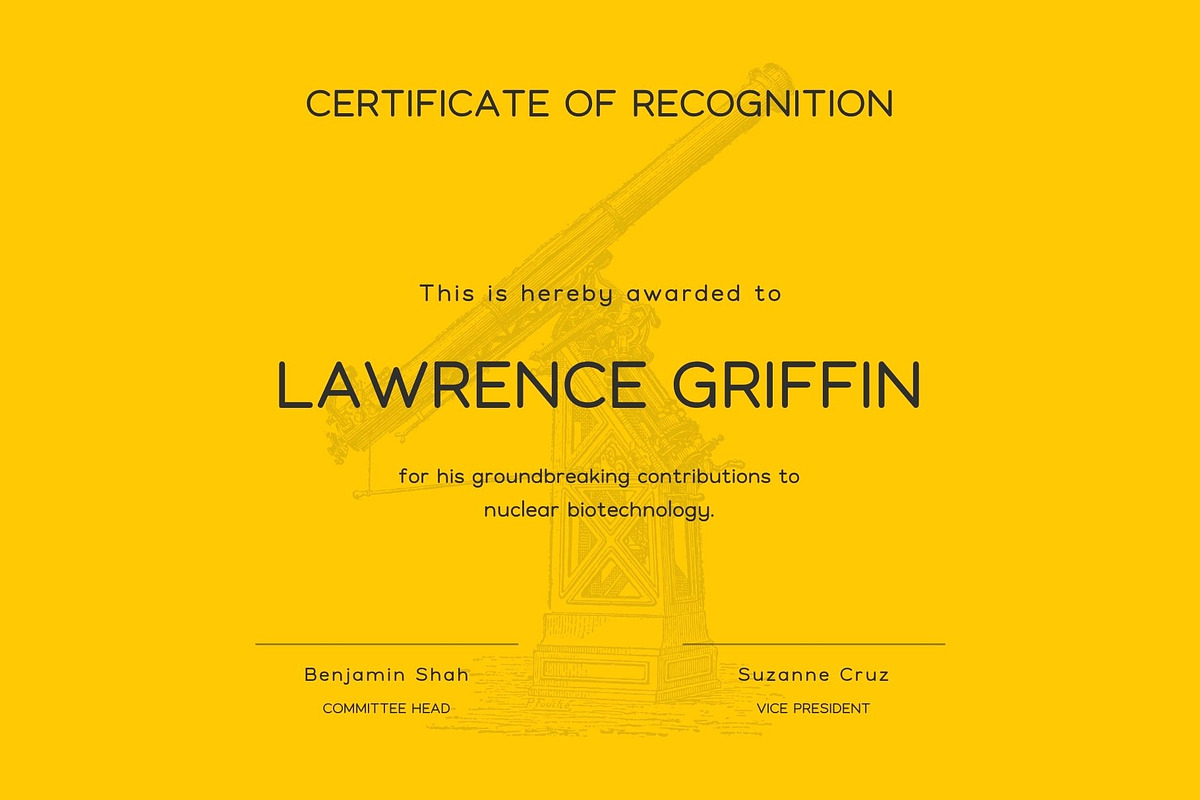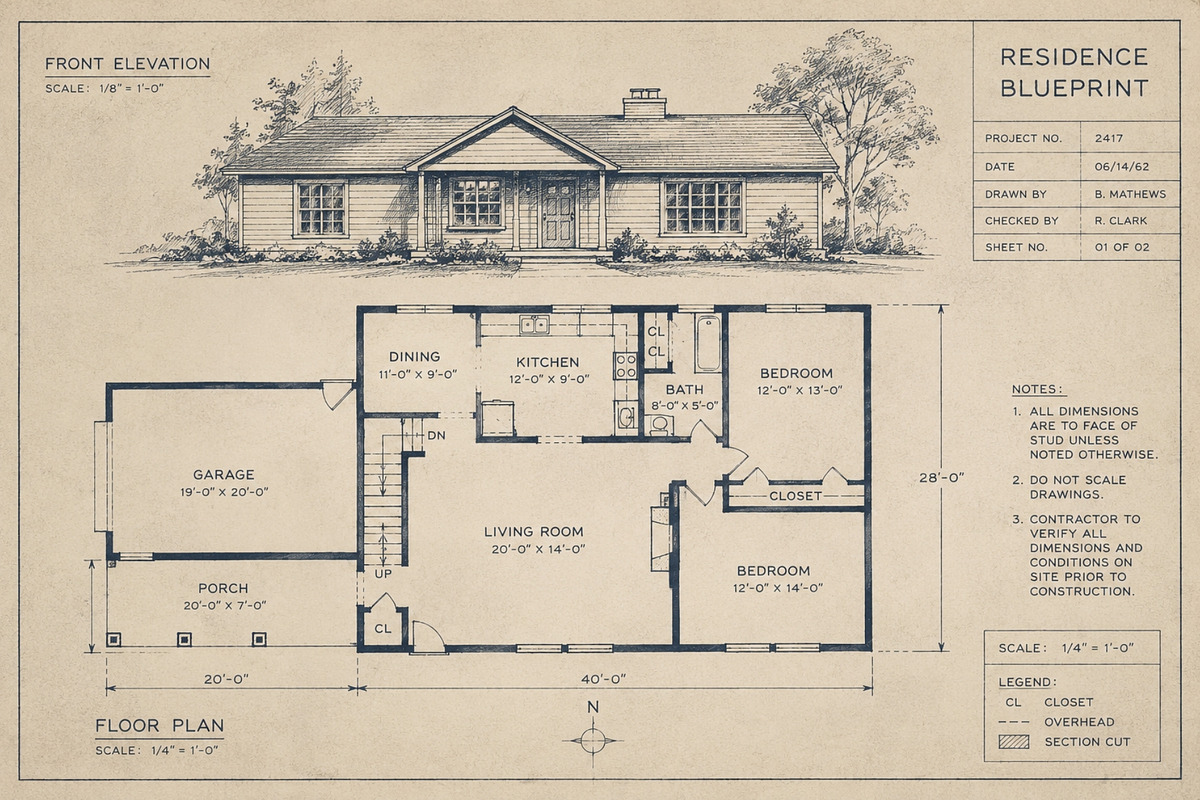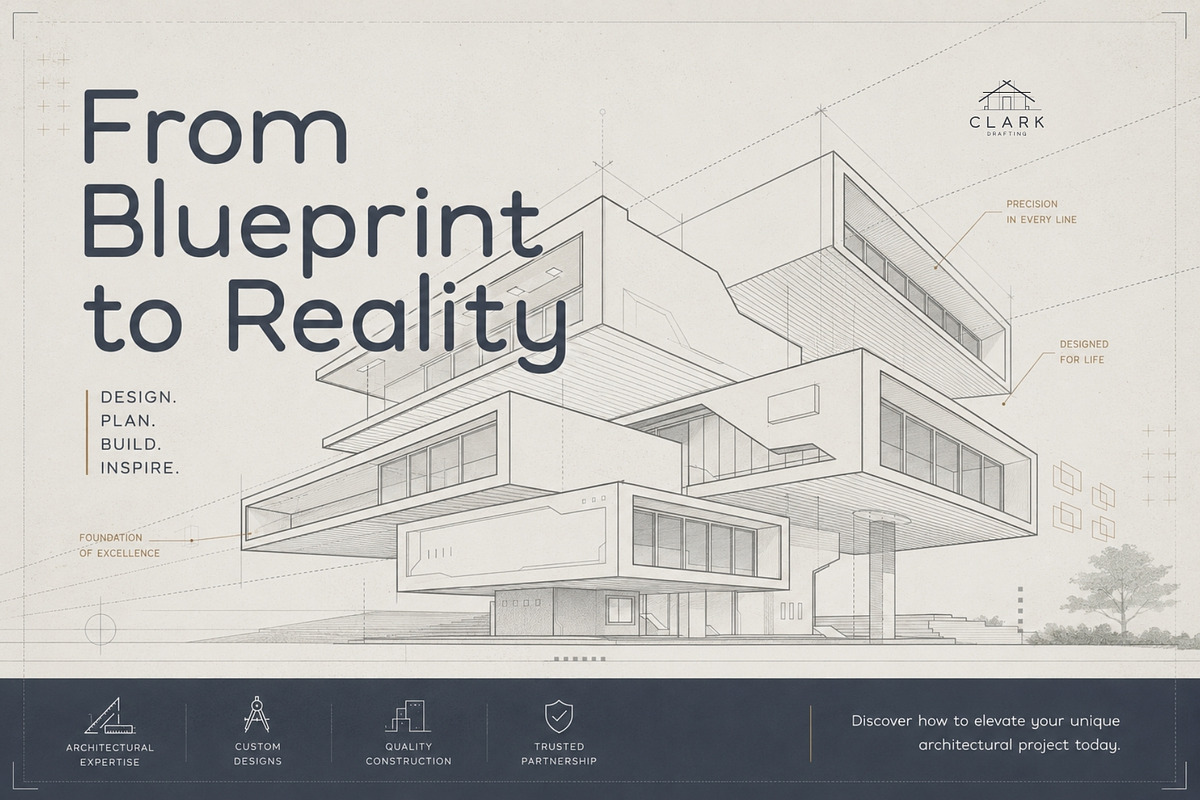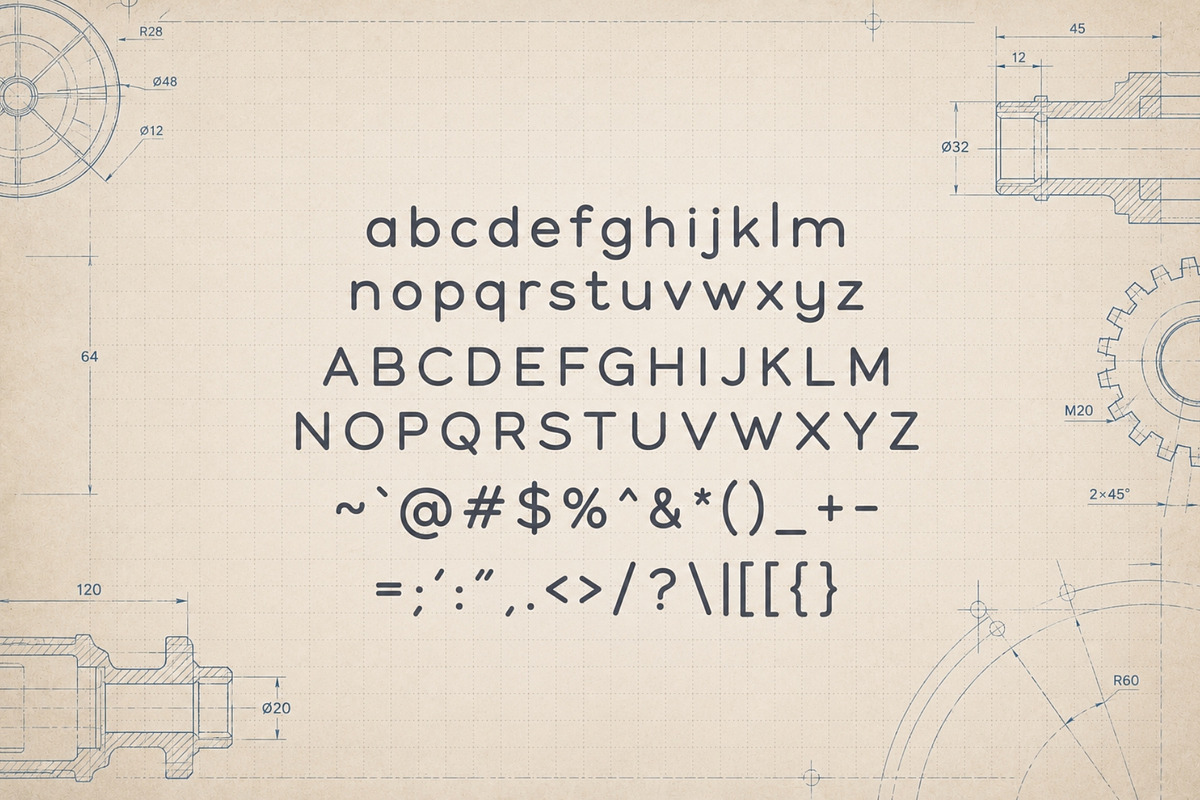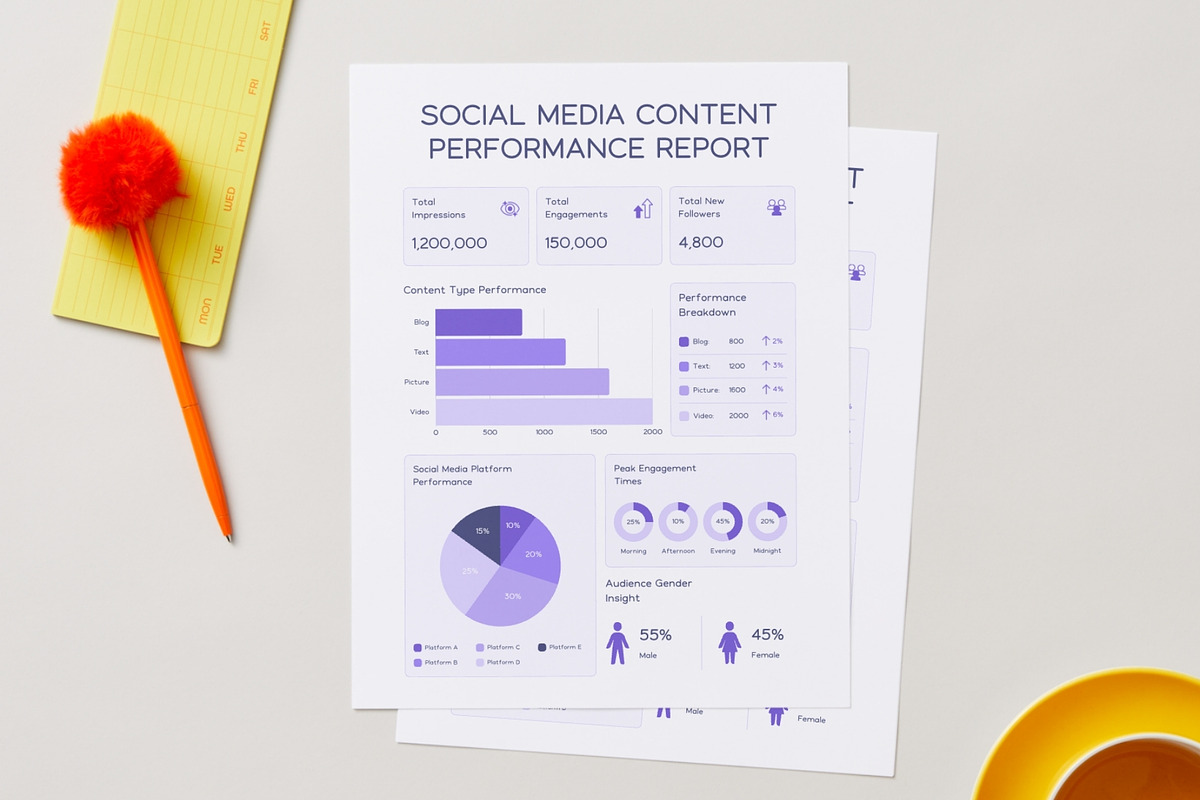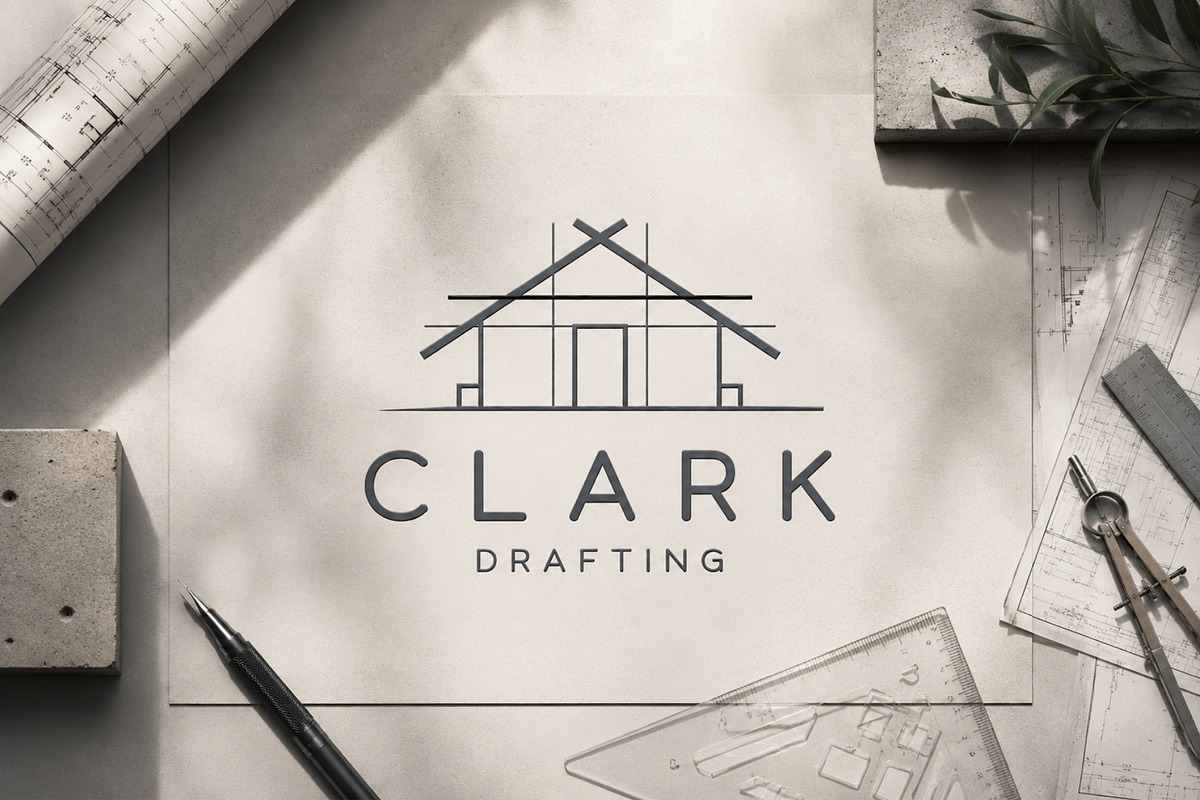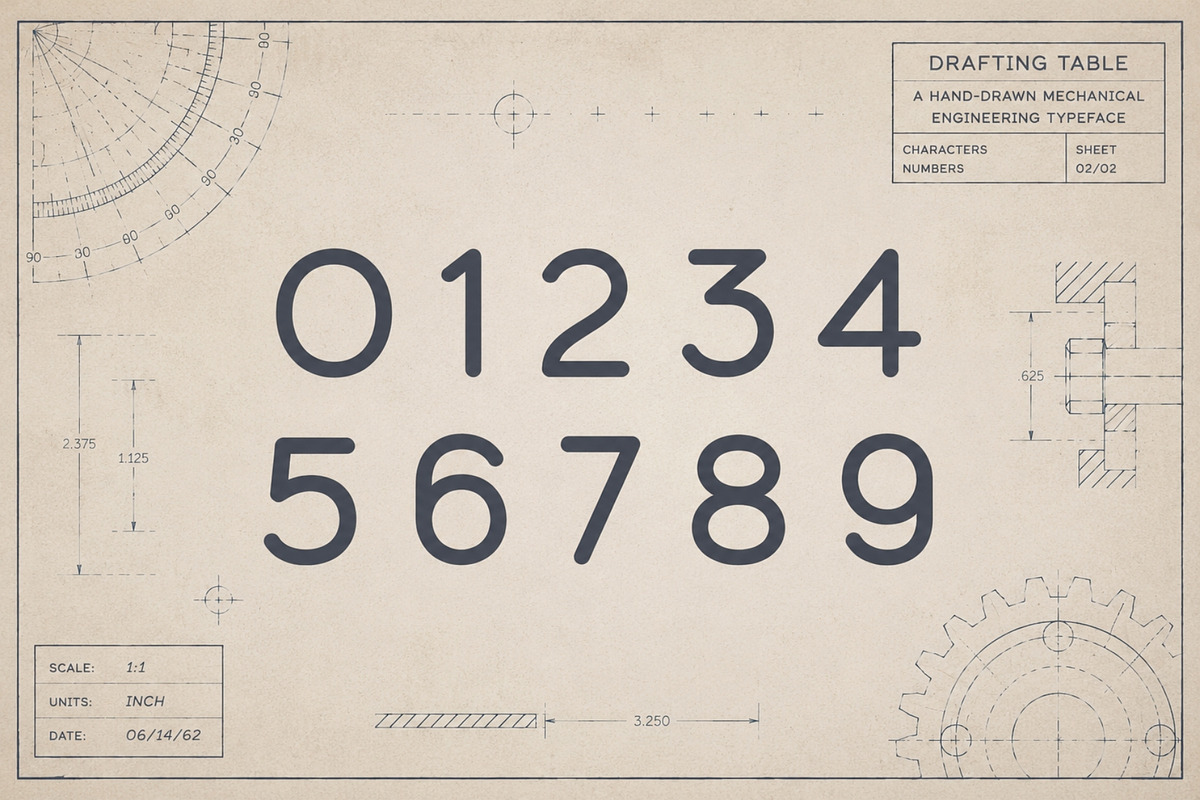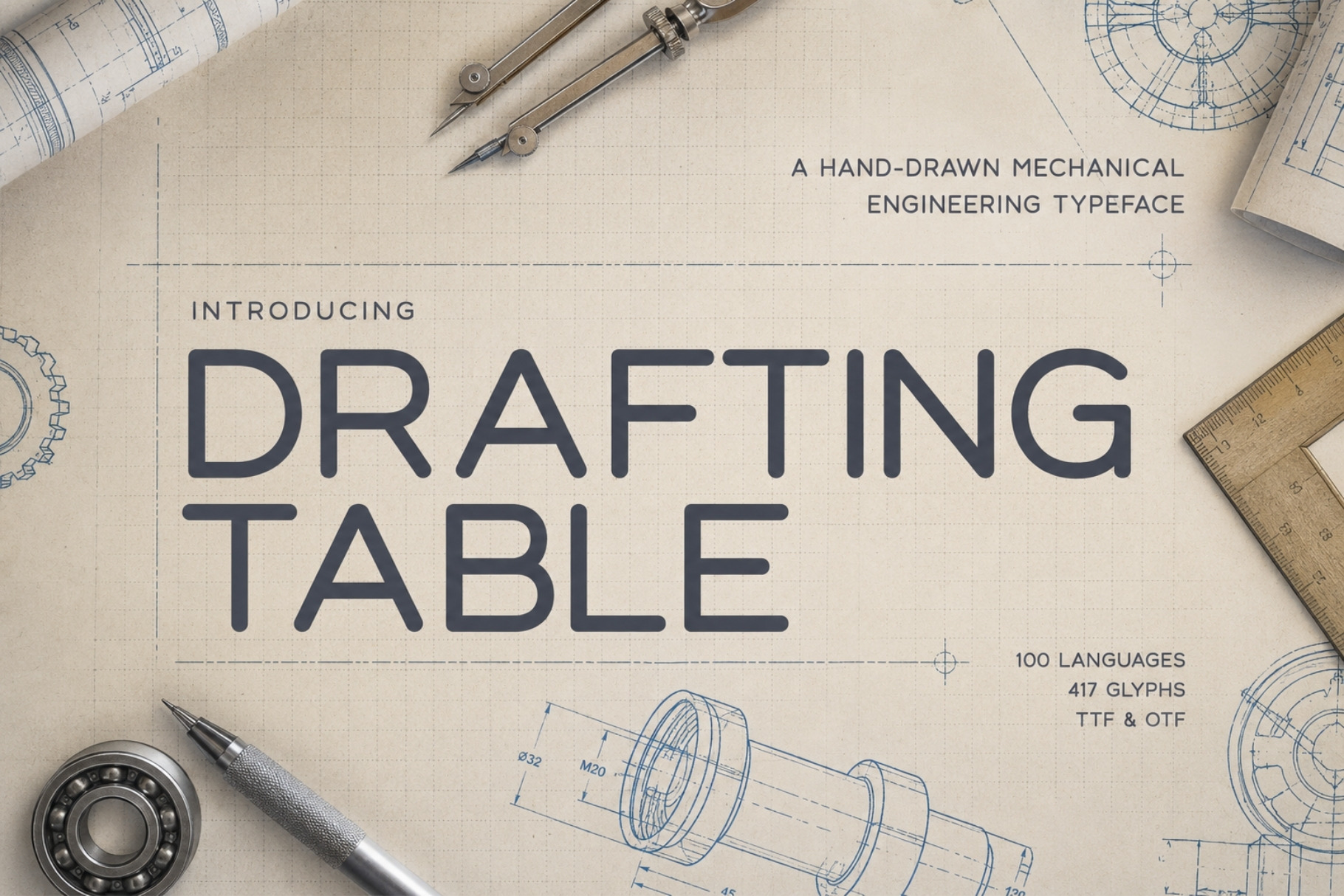
Drafting Table - Engineering Font
Built with the precision of a technical drawing and the character of a draftsman’s hand, Drafting Table is a custom-designed typeface inspired by vintage blueprints, industrial diagrams, engineering notebooks, and classic mechanical manuals.
Its clean, rounded letterforms capture the practical beauty of traditional technical handwriting—the kind once used to label architectural plans, machine components, construction documents, and workshop schematics. Subtle handmade details keep the font from feeling overly digital, giving every word an authentic, human-engineered personality.
Drafting Table feels equally at home on a mid-century instruction manual, a contemporary architecture logo, a construction company identity, or a retro-futuristic spacecraft report. Its distinctive appearance brings structure and clarity to your designs while retaining the warmth and irregularity of genuine hand lettering.
With 417 carefully designed glyphs and support for 100 languages, Drafting Table gives designers, architects, makers, builders, and creative professionals the flexibility to communicate across a wide range of international projects.
Architecture and construction branding, engineering diagrams, vintage blueprint graphics, industrial packaging, mechanical manuals, technical reports, drafting presentations, workshop signage, contractor logos, product labels, instruction guides, editorial layouts, posters, apparel, book covers, museum graphics, retro science projects, and more.
Whether you are designing something practical, historical, industrial, or imaginative, Drafting Table transforms ordinary text into lettering that feels thoughtfully measured, carefully drawn, and ready for production.
Font features:
Authentic draftsman-inspired character
Hand-drawn technical lettering style
417 glyphs
Support for 100 languages
Ideal for both display typography and supporting text
Suitable for print, digital, branding, editorial, and merchandise projects
Bring the character of the drafting room into your next project with Drafting Table—a typeface engineered by hand.